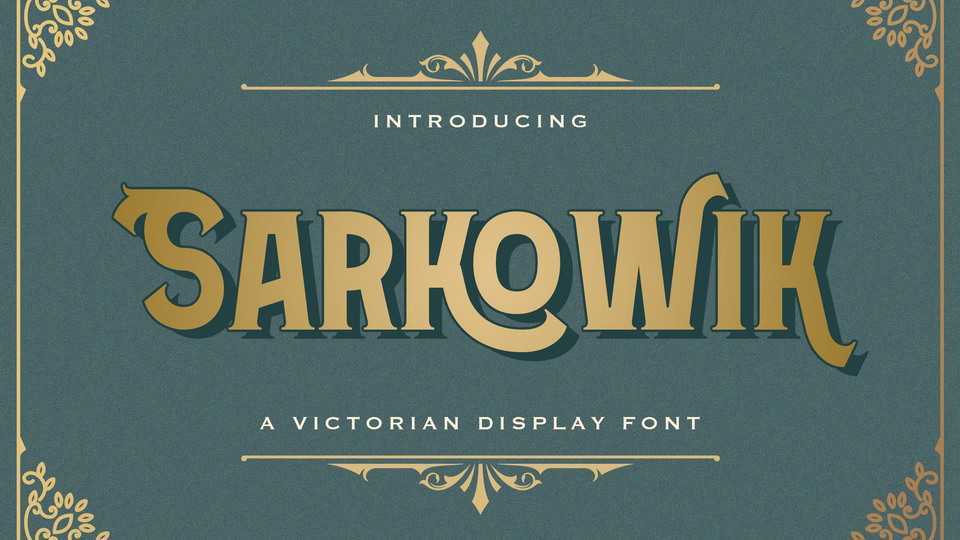
Download Sarkowik font, a unique, vintage and elegant decorative typeface with Victorian style. Sarkowik feels playfully nostalgic and delivers an incredible vintage aesthetic.